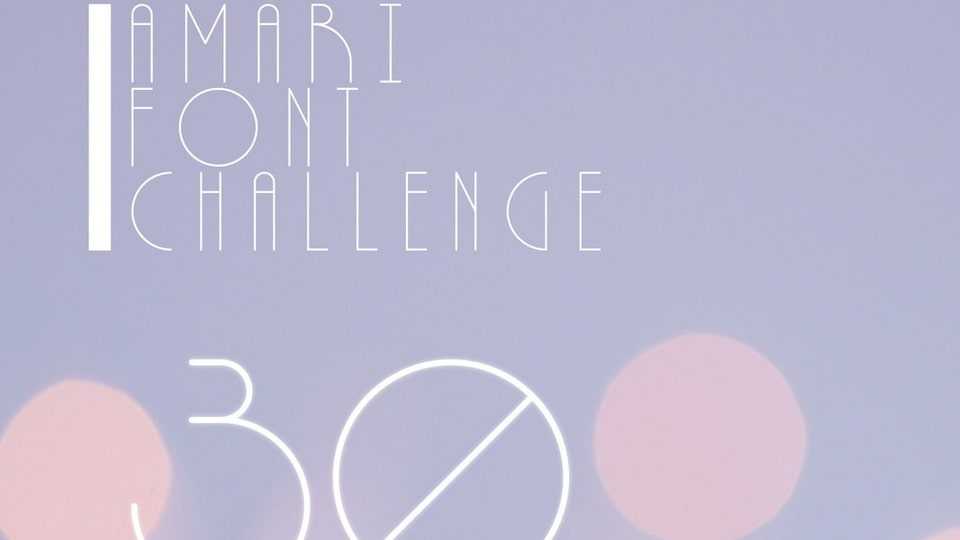
Amari Font 30/100 › Fontesk – Download Grátis
Download Amari Font 30/100, a beautiful and elegant typeface based on geometric shapes and modules. With its vintage look the font is great for posters, headlines, logos, magazines and old fashioned projects.